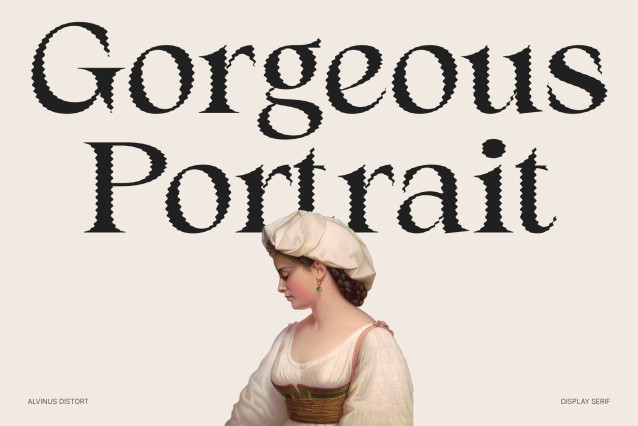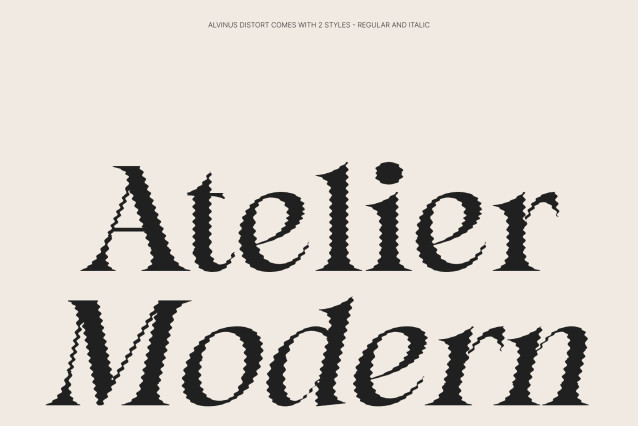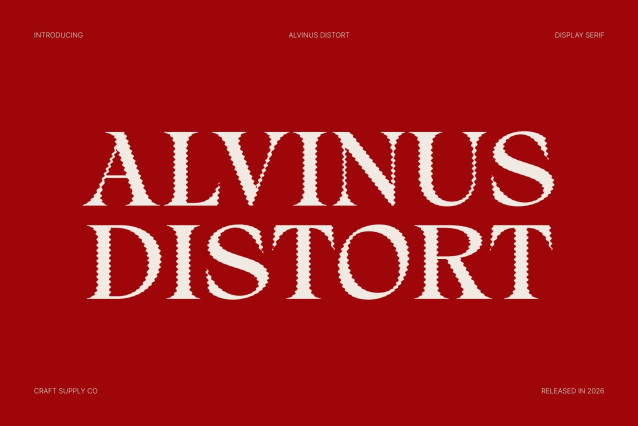
CS Alvinus Distort – Modern Serif Font: Where Elegant Sophistication Meets Fluid Distortion
Graceful Contemporary Serif Forms with Timeless Beauty
This is a modern serif font designed with elegant proportions and refined detailing that exude beauty and grace in every composition. Its sophisticated serif structure creates a polished visual identity filled with luxury, professionalism, and timeless appeal. Every character feels refined and expressive, making the font perfect for premium creative projects and elegant editorial design.
Distort Effect with Gentle Organic Motion
This font features fluid organic contours along the letter edges that create a subtle melting effect. This expressive detailing introduces movement, softness, and artistic visual depth while preserving the font’s refined serif foundation. The result is a dynamic and immersive appearance that feels modern, artistic, and visually captivating.